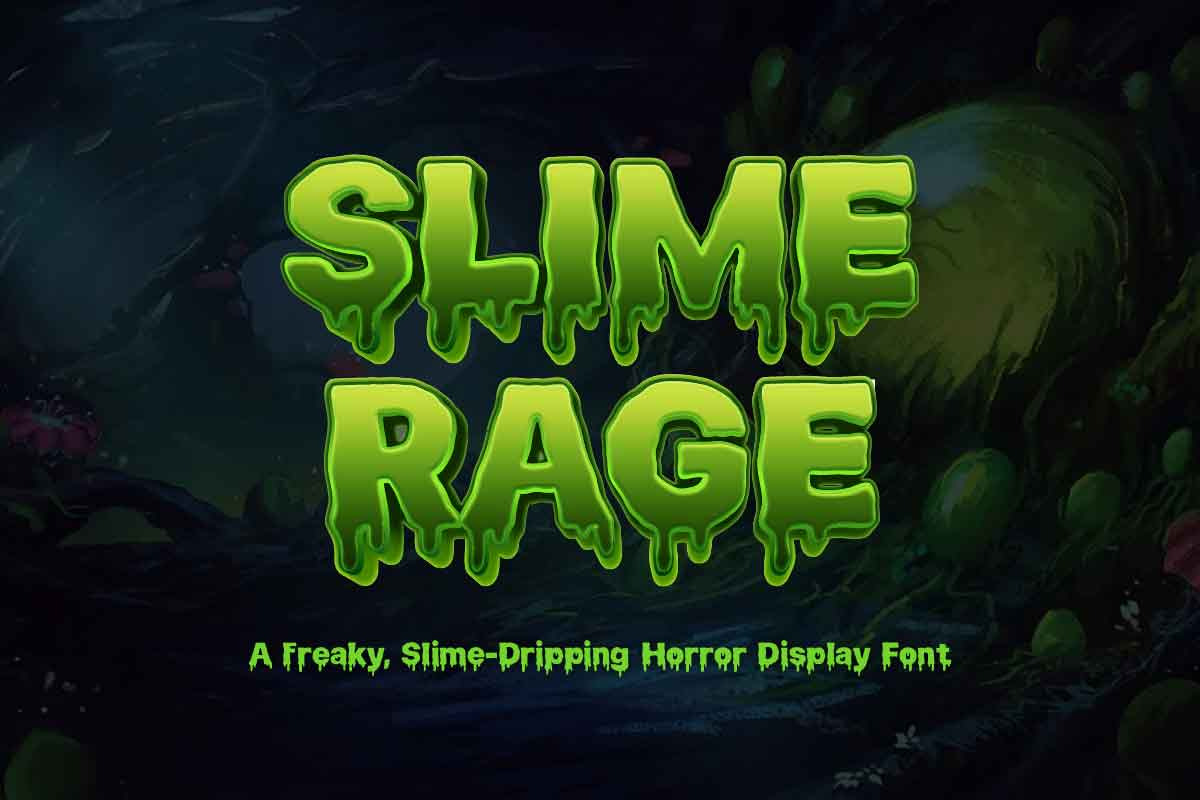
Slime Rage - Horror Display Font
Slime Rage is a freaky horror display font inspired by dripping slime, toxic creatures, monster movies, and eerie Halloween visuals. Featuring chunky letterforms with gooey drip details, this typeface delivers a bold, terrifying look while remaining highly readable for large headlines and eye-catching designs.
Whether you're creating horror game artwork, Halloween event posters, monster-themed branding, or spooky YouTube thumbnails, Slime Rage adds the perfect dose of creepy personality. Its slimy texture and playful horror aesthetic make it ideal for projects that need to feel both frightening and fun.
Designed for maximum impact, Slime Rage turns every title into a monstrous statement.